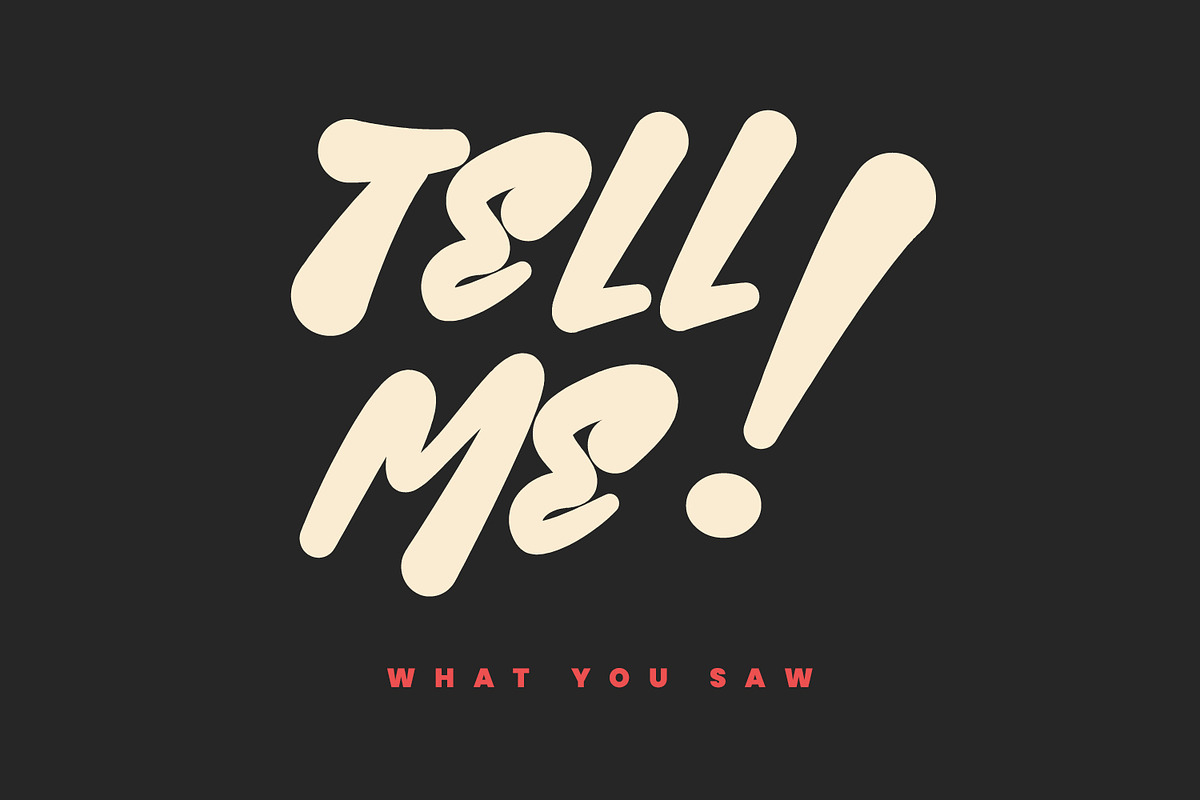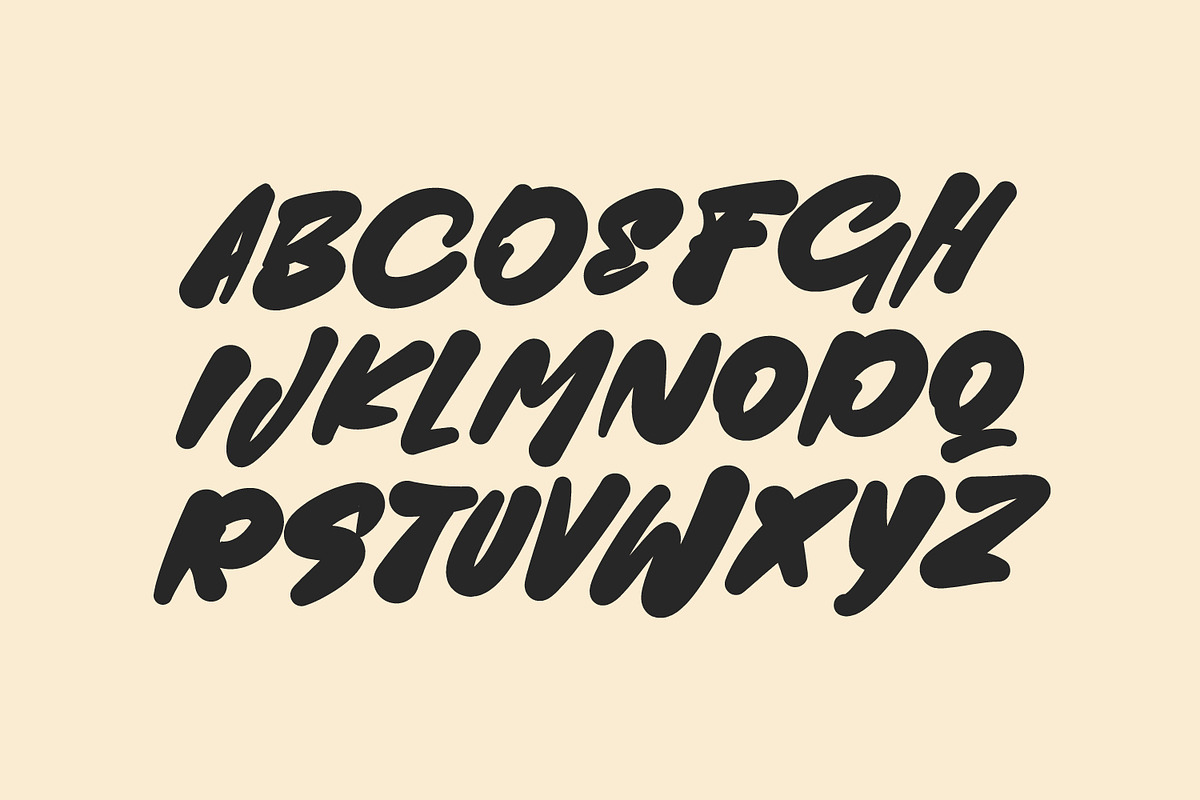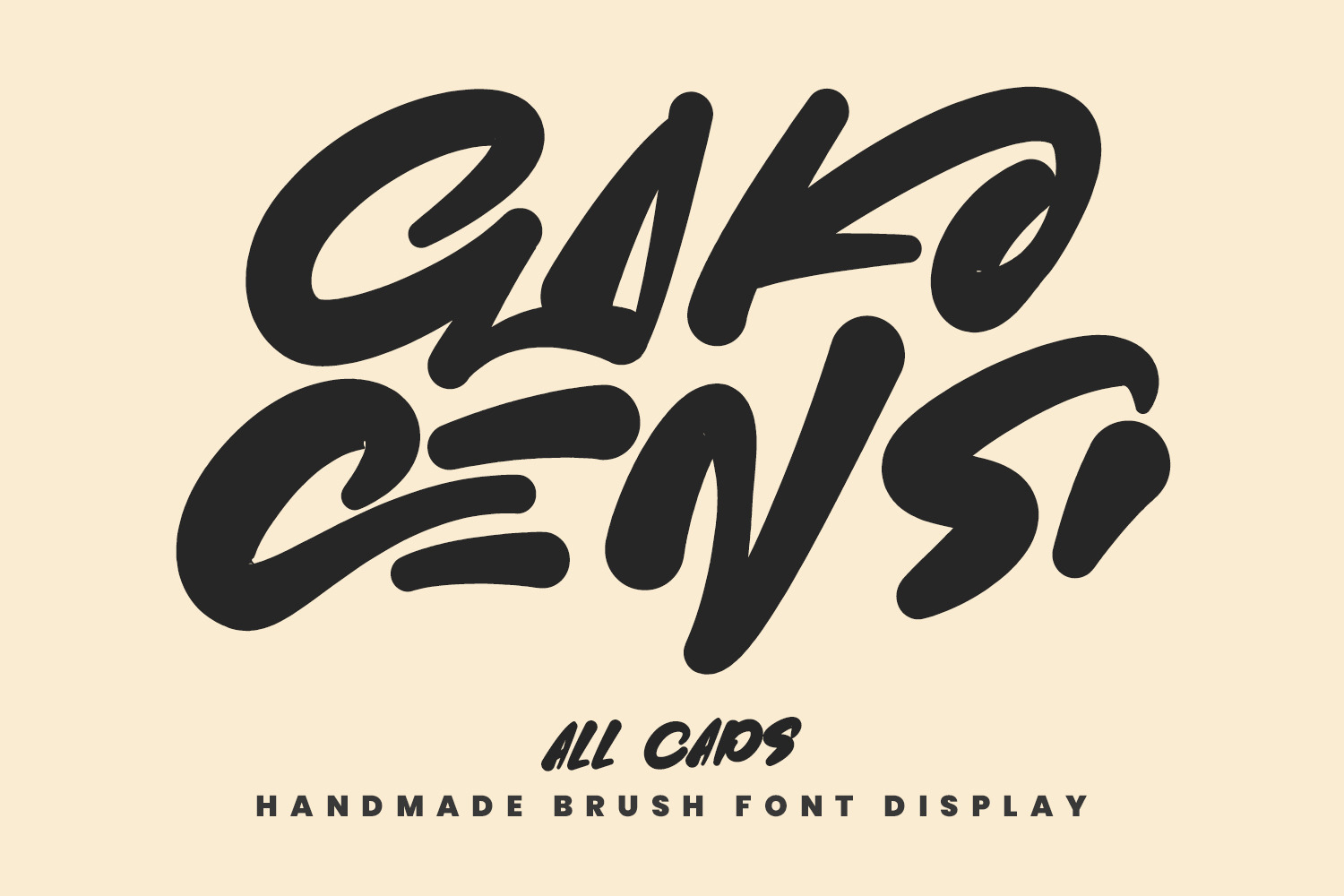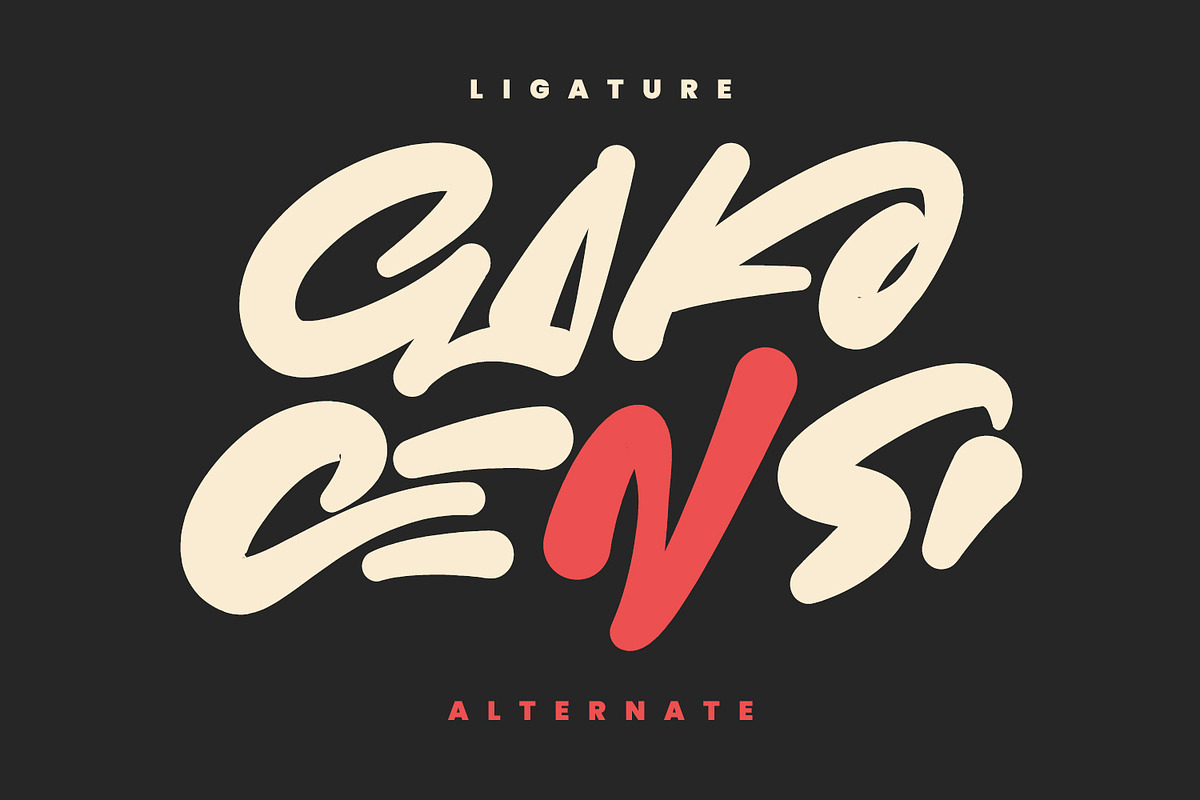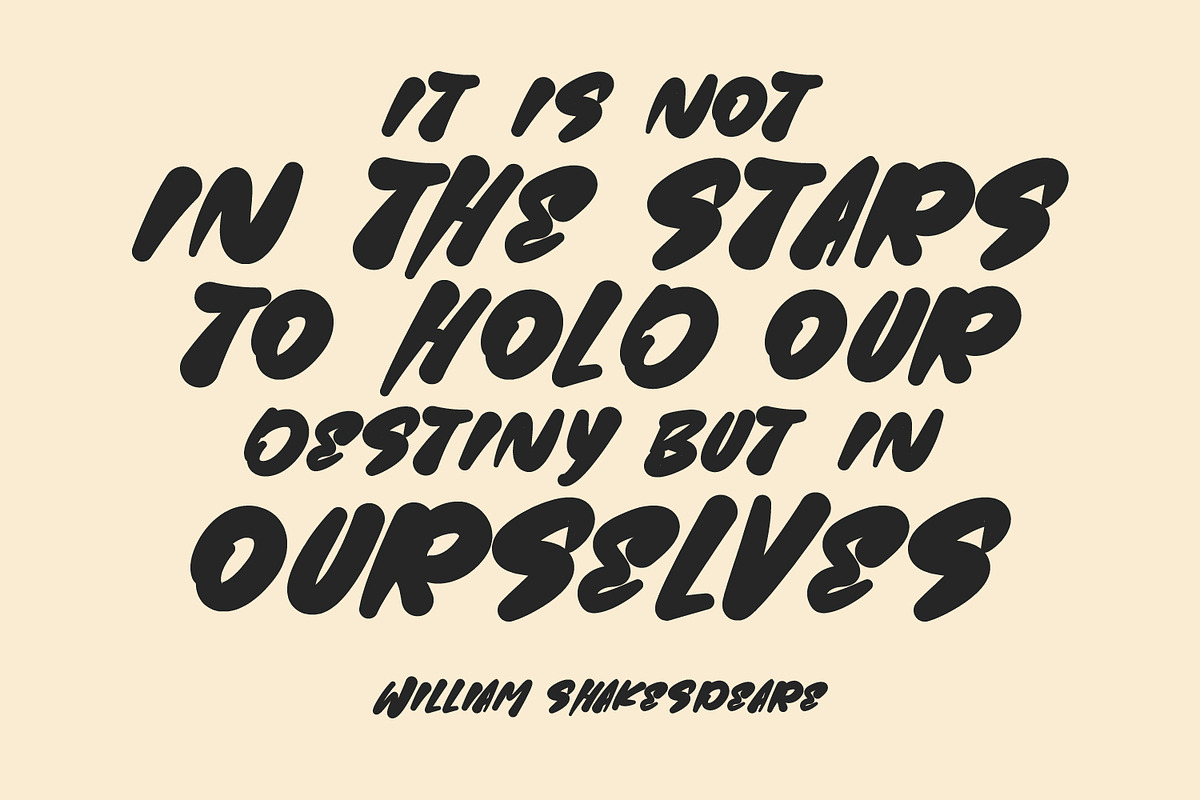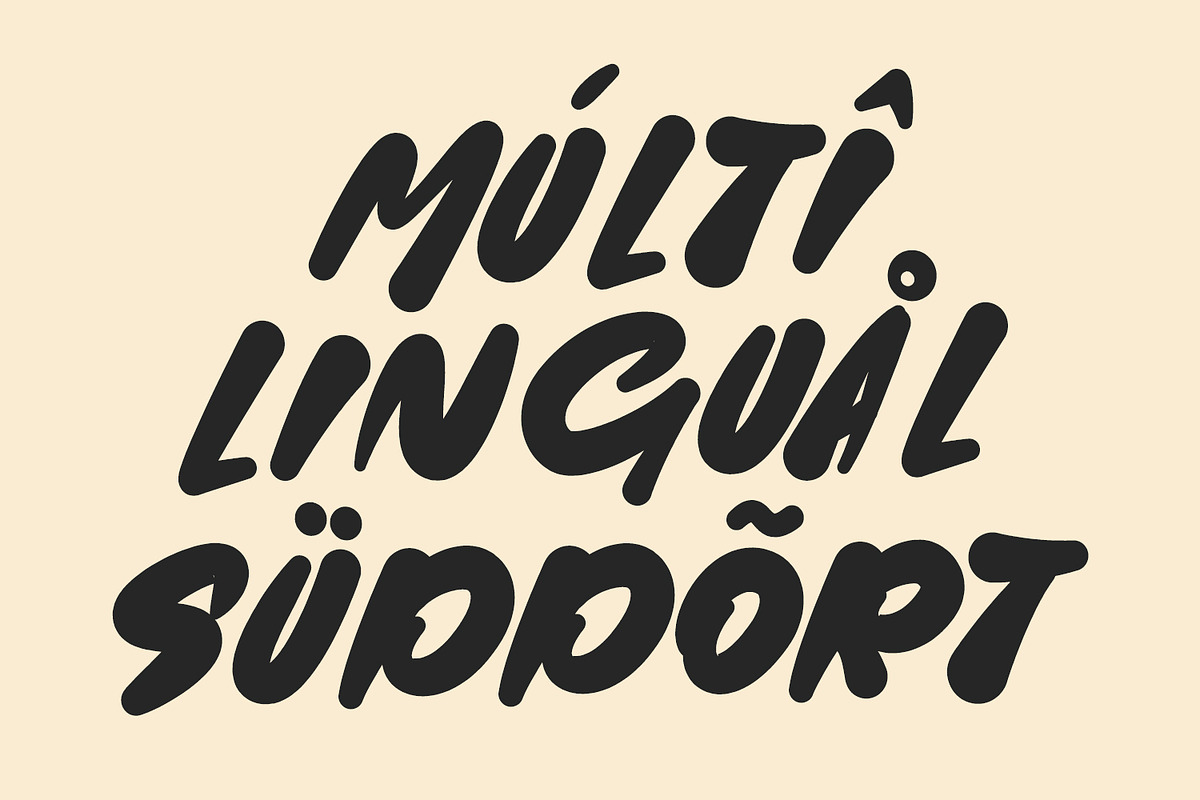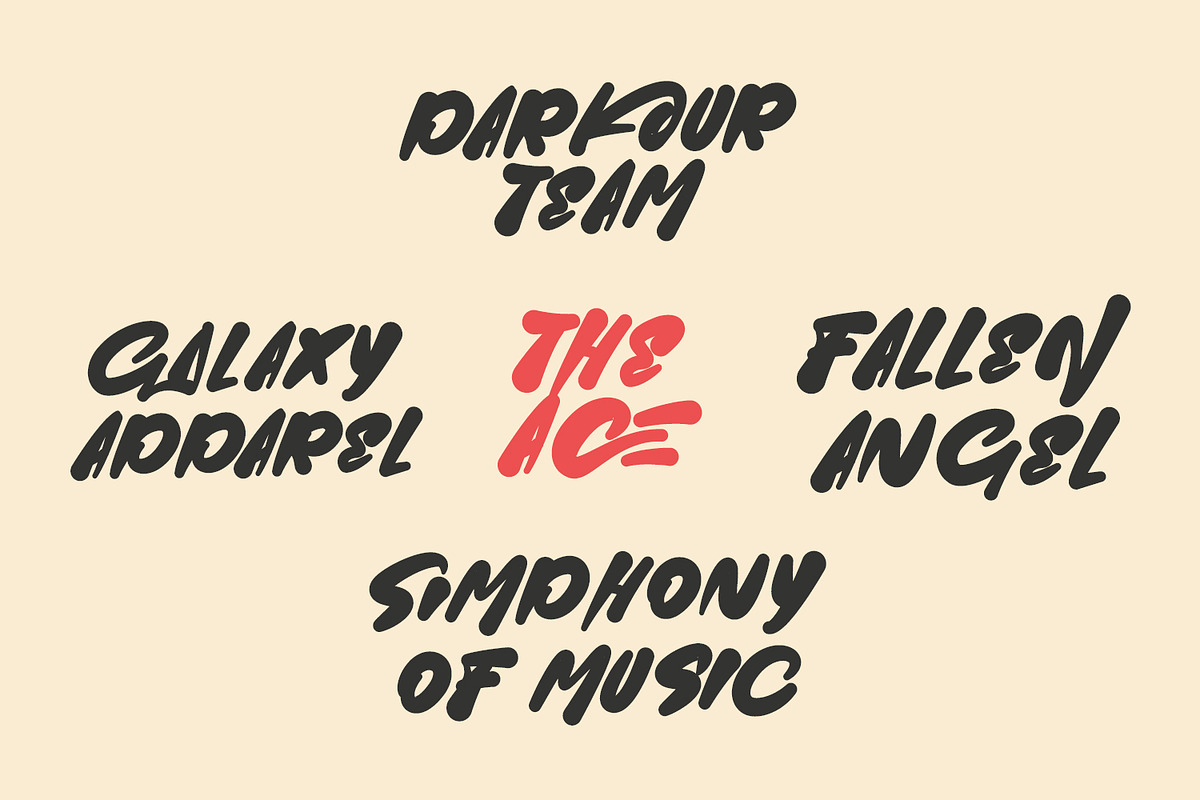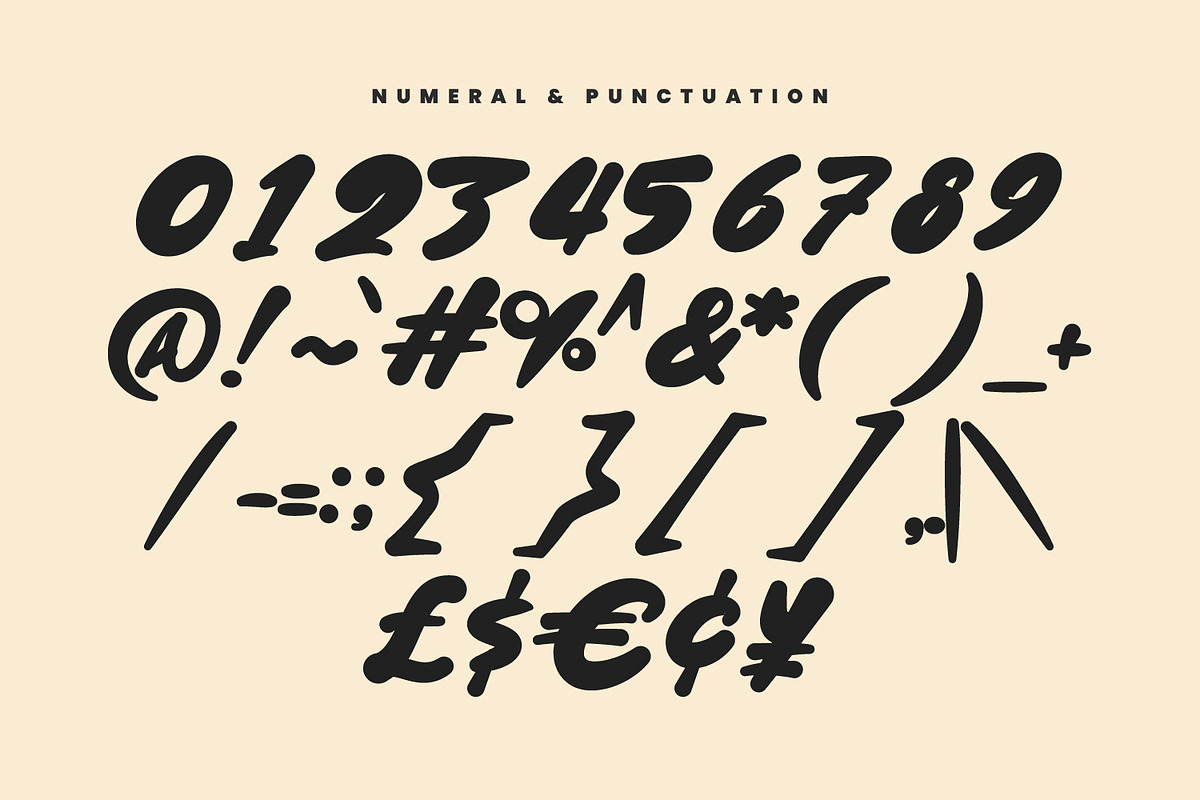
Gako Censi Handmade Brush Font
Gako Censi handmade brush display font, fun character with alternates and ligatures. To give you an extra creative work. Gako Censi handmade brush display font support multilingual language.